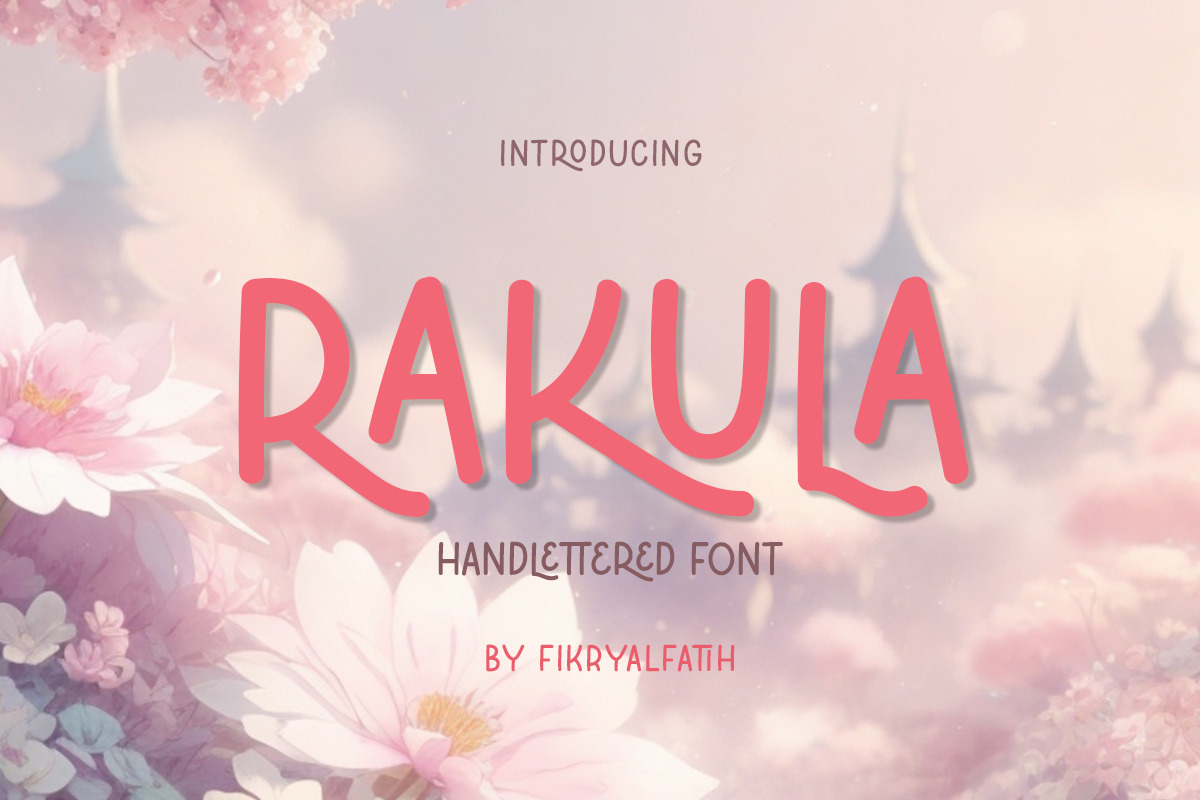
Rakula - Handlettered Font
Rakula is an organic and hand-lettered typeface. It has a friendly and organic feel that works great for branding, social media, and marketing! Rakula is inspired by hand lettering art - incorporating many letters that fit into each other and alternate that add a hand-drawn feel. The corners are rounded to give it an organic and friendly feel. With so many alternatives and ligatures, each word can be customized to fit the needs of your project.